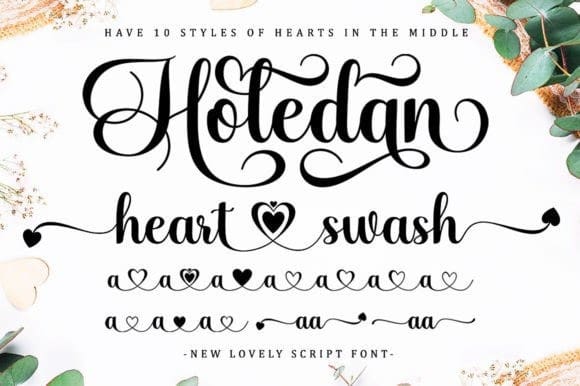
Holedan Heart Font
Holedan Heart Font is a very elegant, beautiful and cute script font. This love-centered look makes it perfect for use in all your best design projects. Expertly designed to be a true favorite, this font has the potential to take your creative ideas to the highest level! This font is PUA coded which means you can easily access all the glyphs and strokes!